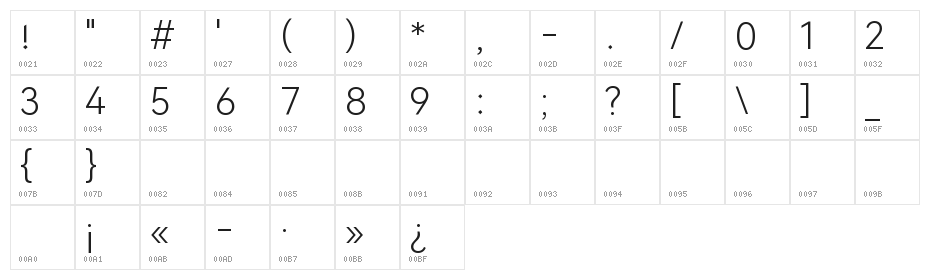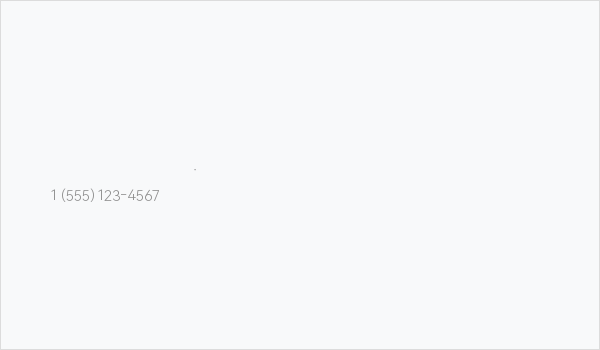
HarmonyOS Sans Naskh Arabic Light Font
HarmonyOS Sans Naskh Arabic Light Description
This font exhibits a clean and modern sans-serif style with smooth curves and a balanced structure. The characters are evenly spaced, providing a harmonious and readable appearance. The numerals are distinct and clear, making them suitable for various applications. The special characters are well-defined, maintaining the overall aesthetic of simplicity and elegance. This font is versatile and can be used in both digital and print media, offering a professional look without being overly formal.
| Proposed Projects | Ideal for user interfaces, websites, mobile applications, and corporate branding. |